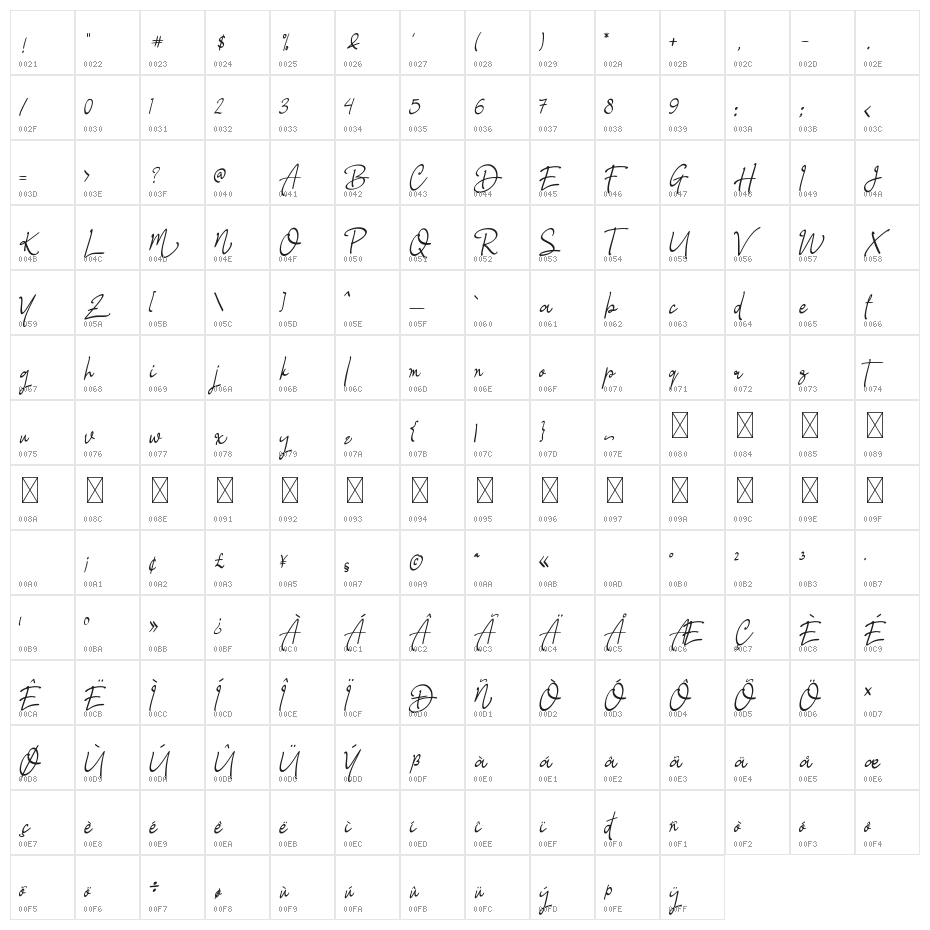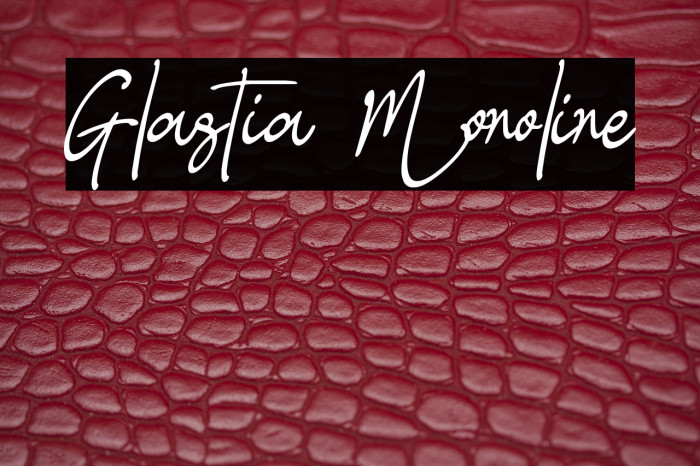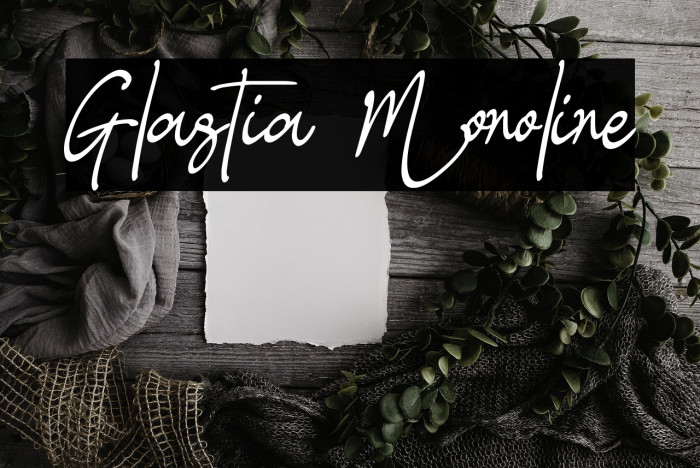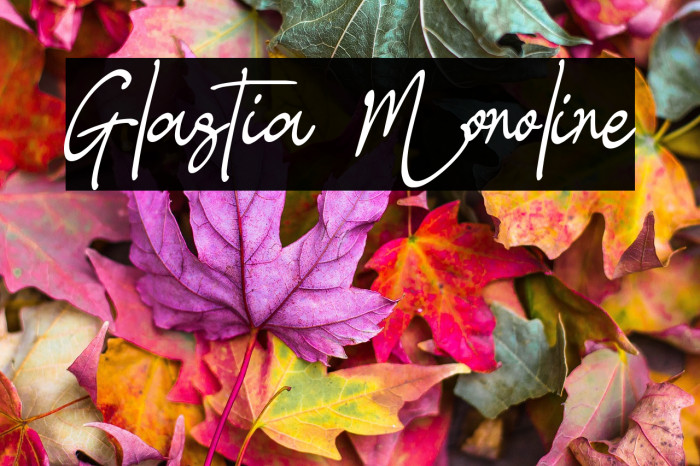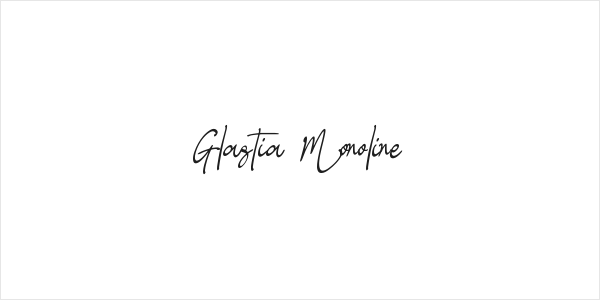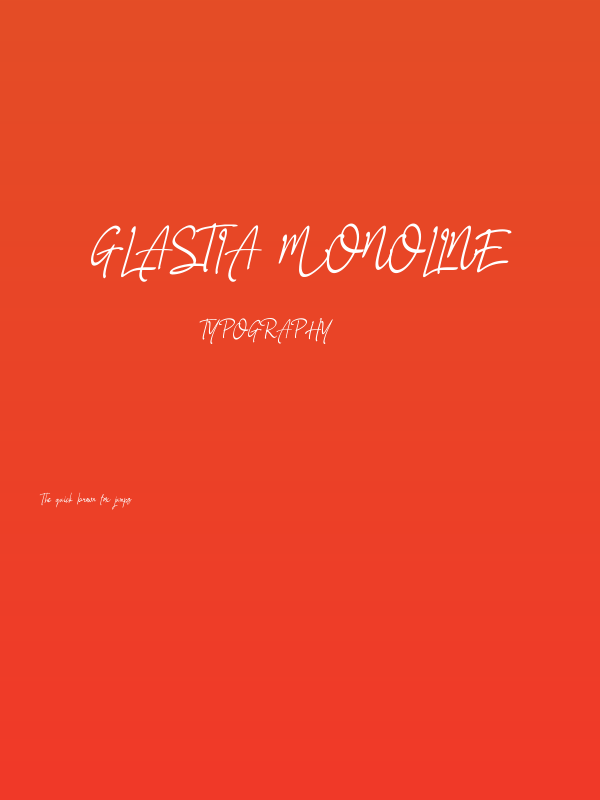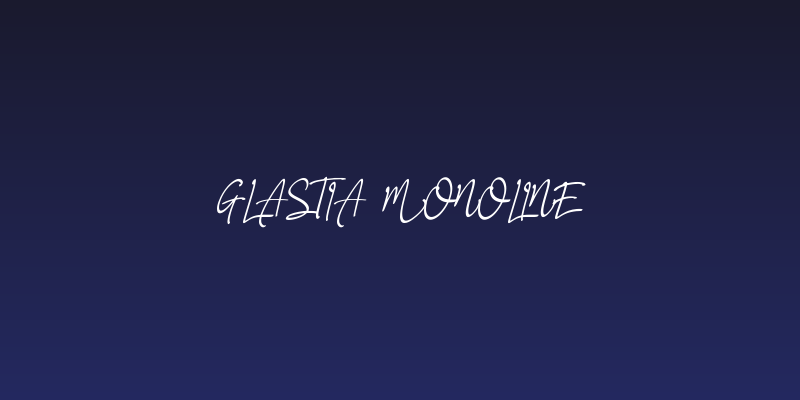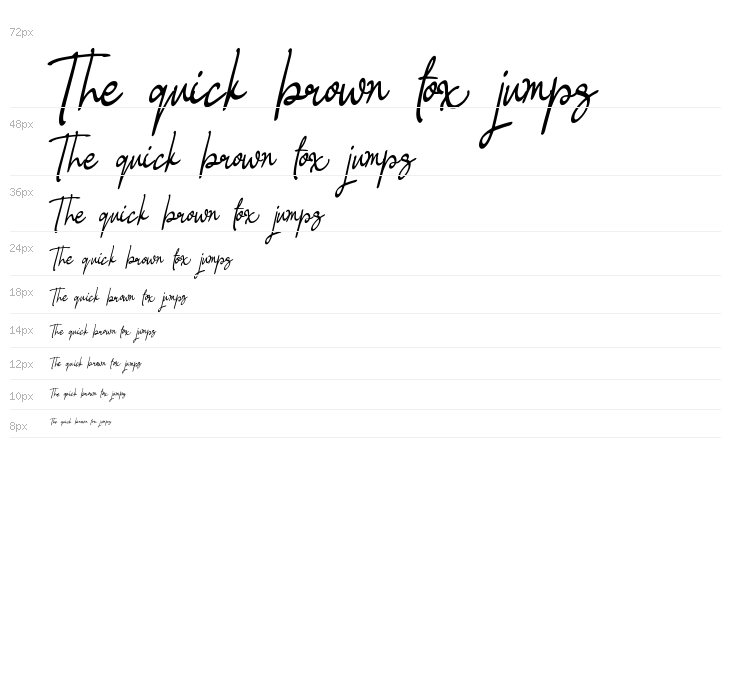
Glastia Monoline Font
Glastia Monoline Description
This font exhibits a fluid, monoline script style that combines elegance with a casual flair. The characters are connected in a seamless flow, reminiscent of cursive handwriting. The uppercase letters are tall and slightly narrow, with distinctive loops and swashes that add a touch of sophistication. The lowercase letters maintain a consistent height, contributing to the font's legibility. Numbers and special characters are crafted with the same attention to detail, ensuring a cohesive look across all text. This font's smooth lines and consistent stroke width make it versatile for various design applications.
| Overall Style | Elegant, Casual |
| Proposed Projects | Ideal for wedding invitations, branding, greeting cards, and elegant packaging designs. |